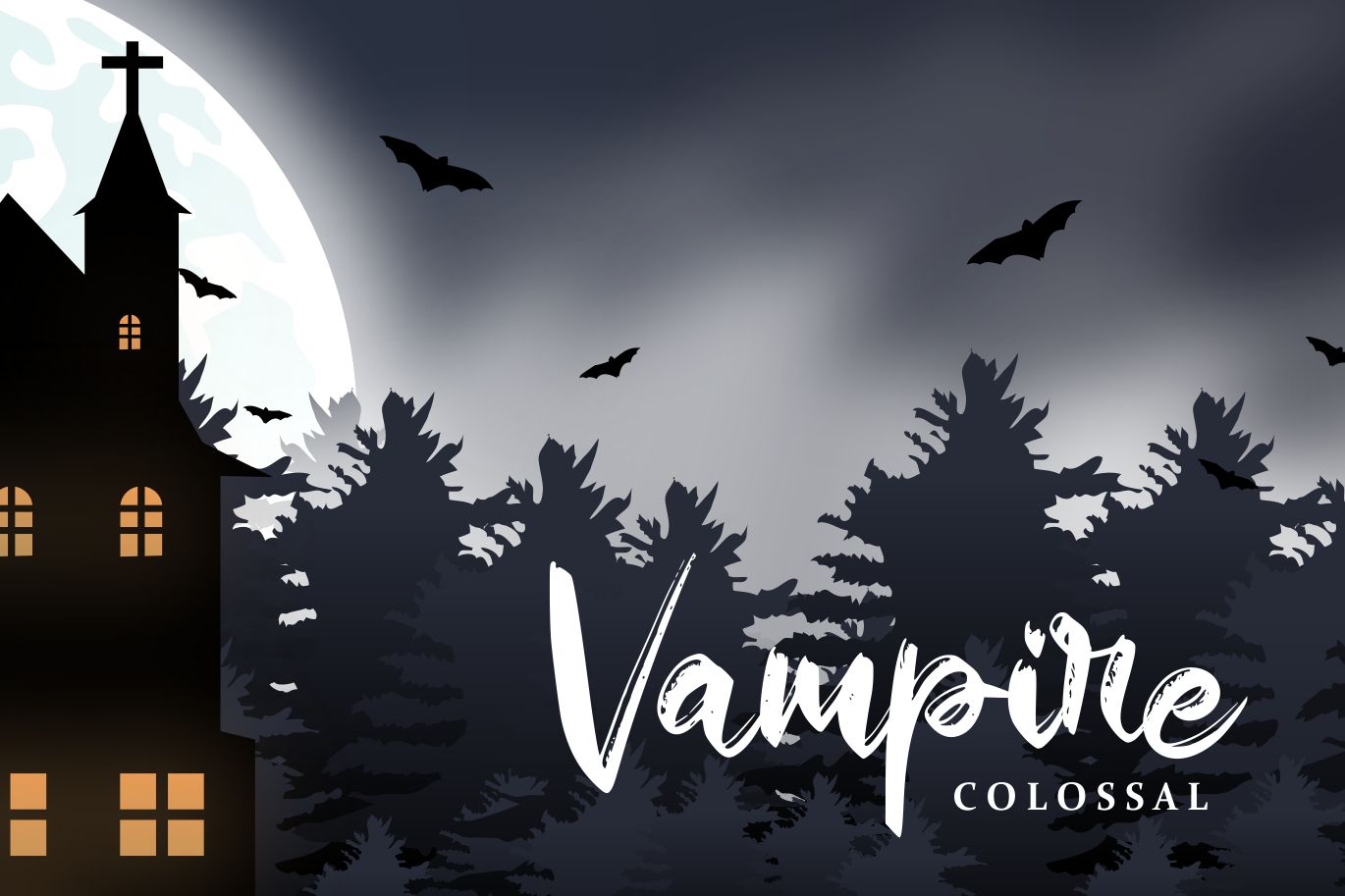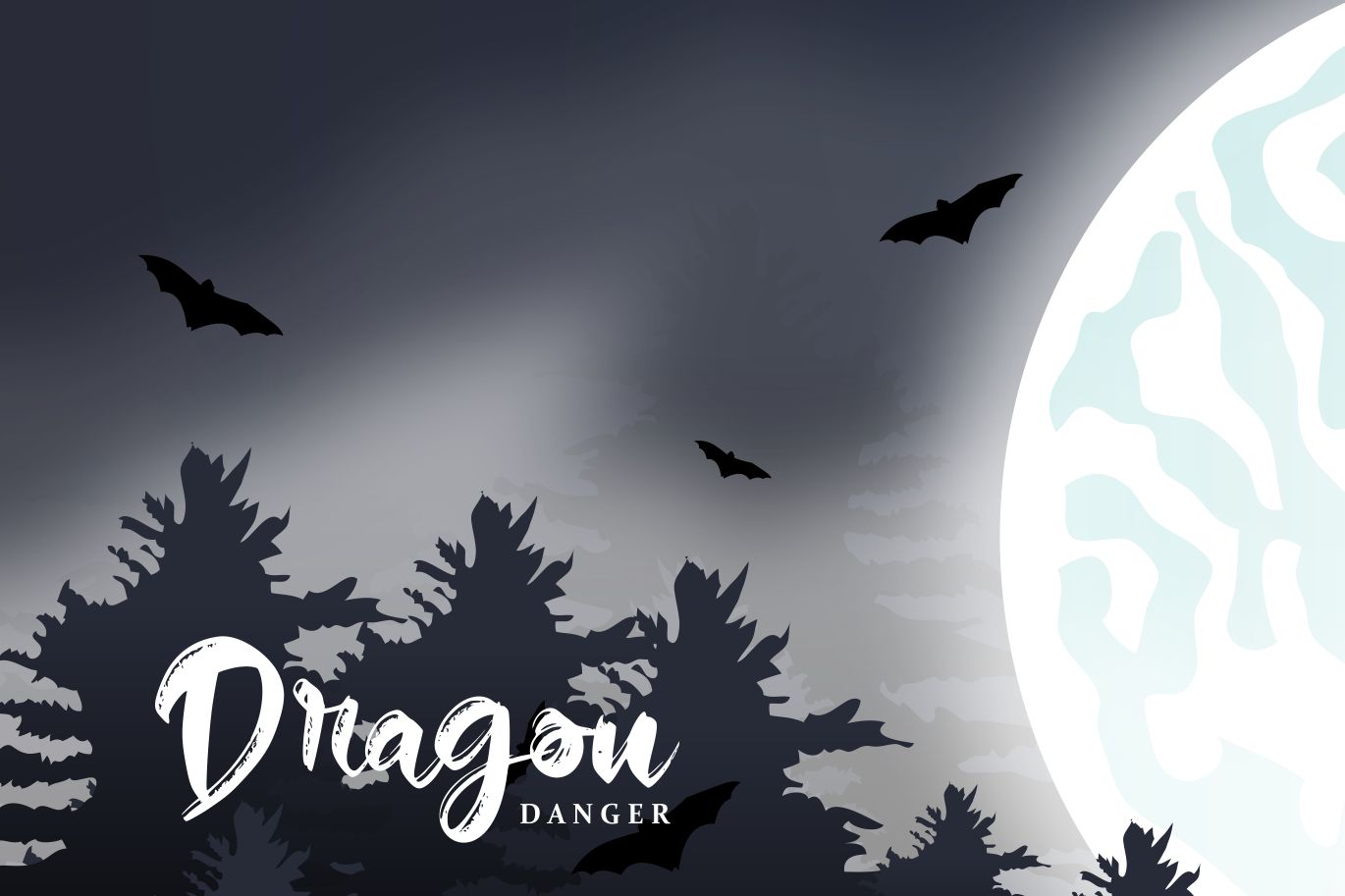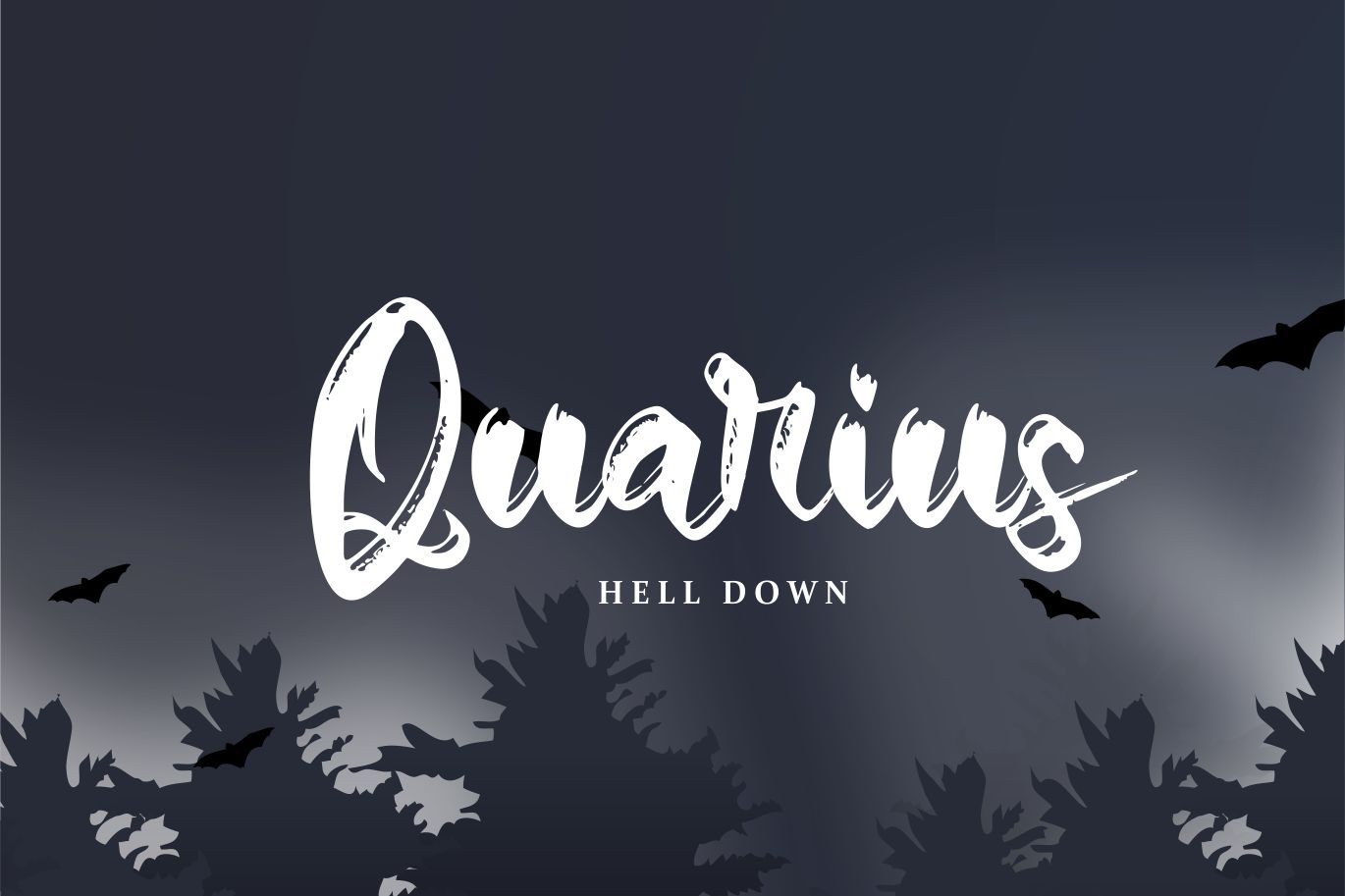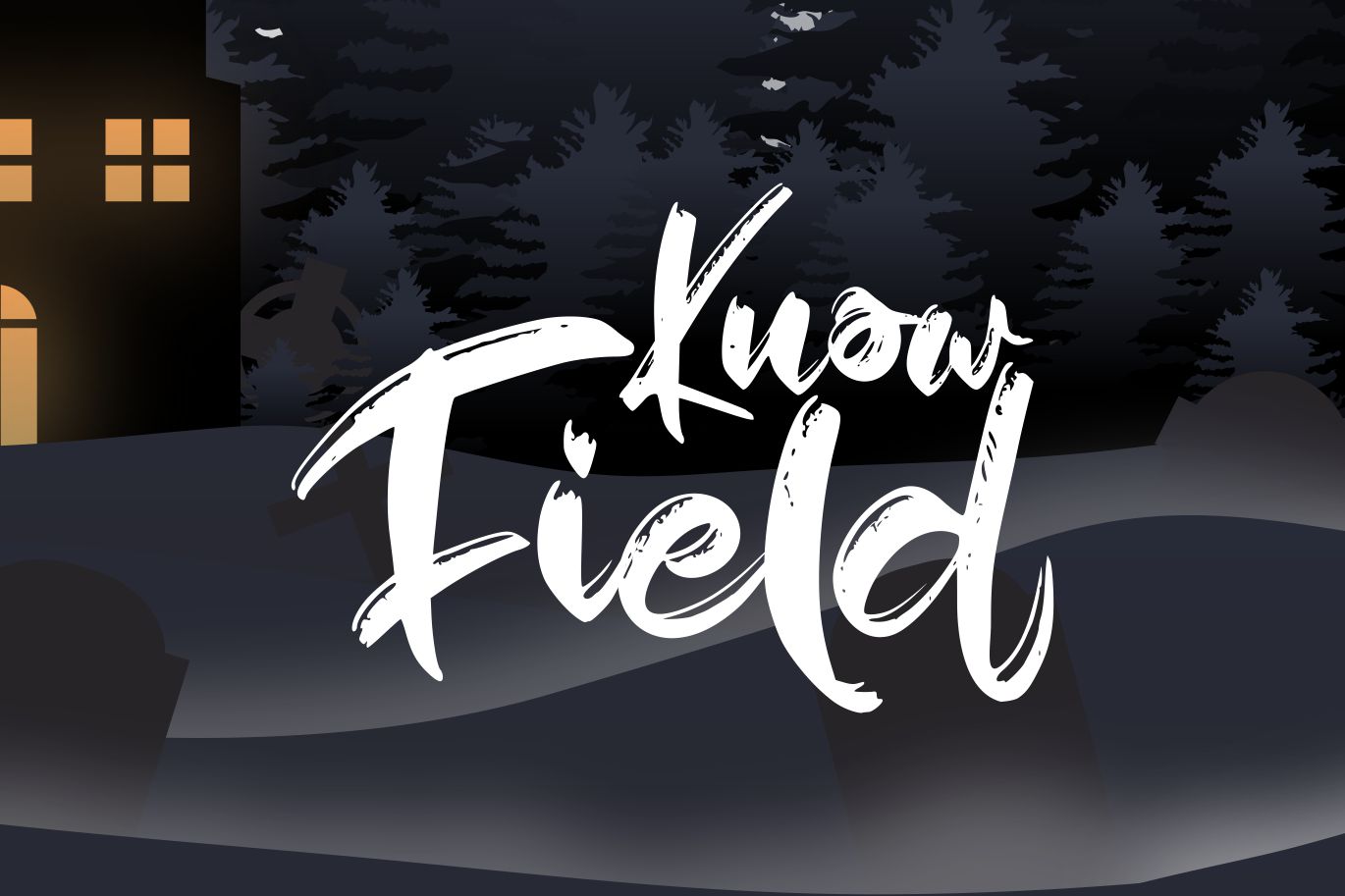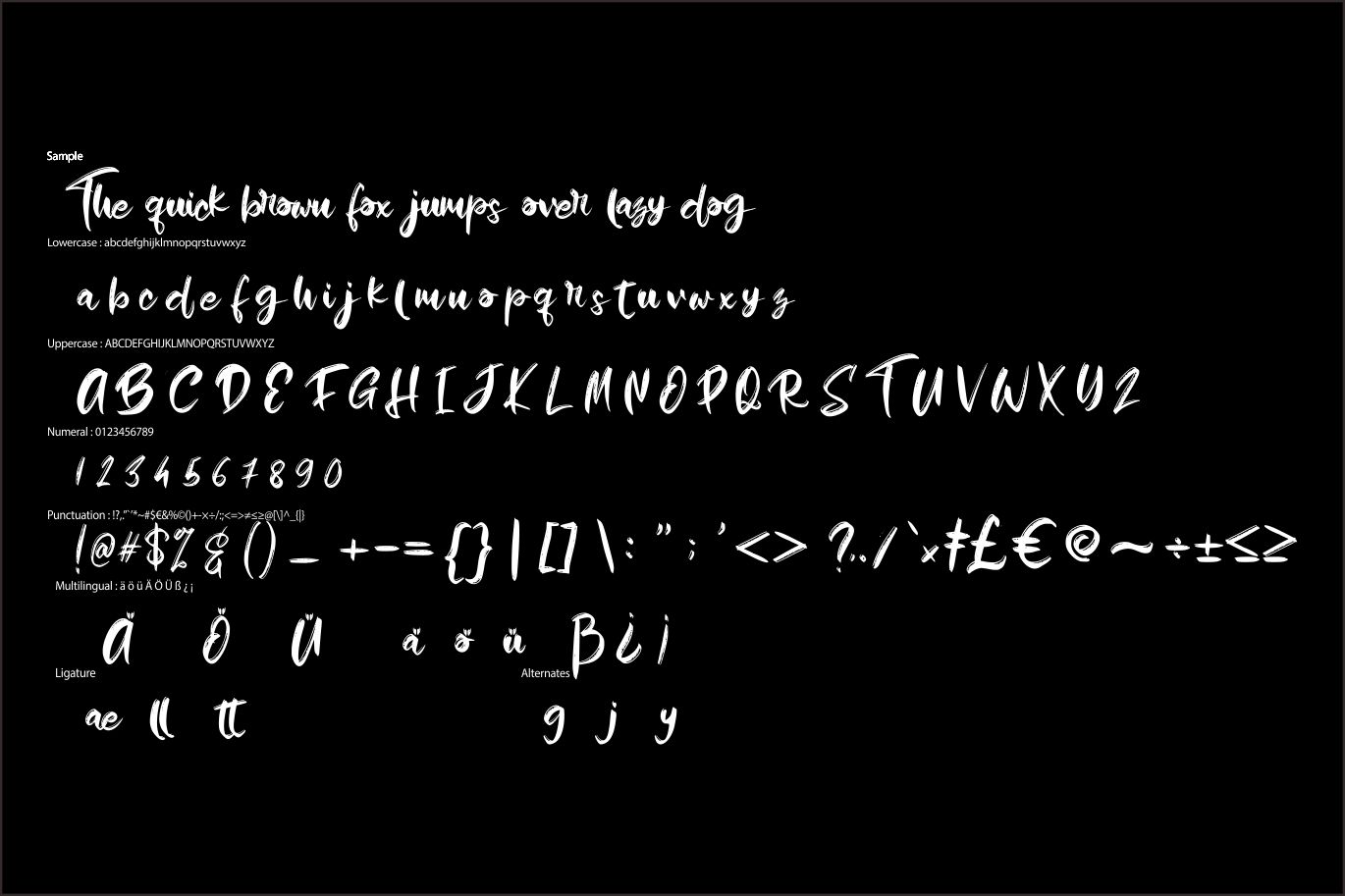
Humble | Mystical Typeface Font
**Humble | Mystical Typeface** with a calligraphy style, So beautiful on invitation like greeting cards, branding materials, business cards, quotes, posters, and more!
* Tons of glyphs
* Alternates and Ligatures
* Punctional
* Fonts include **Multilingual Support**